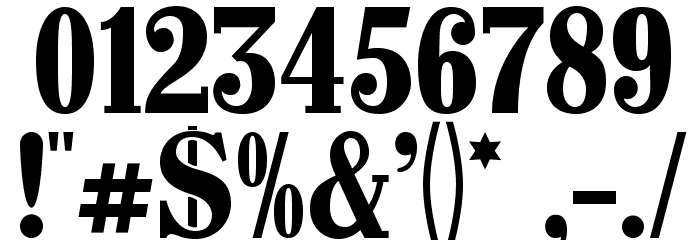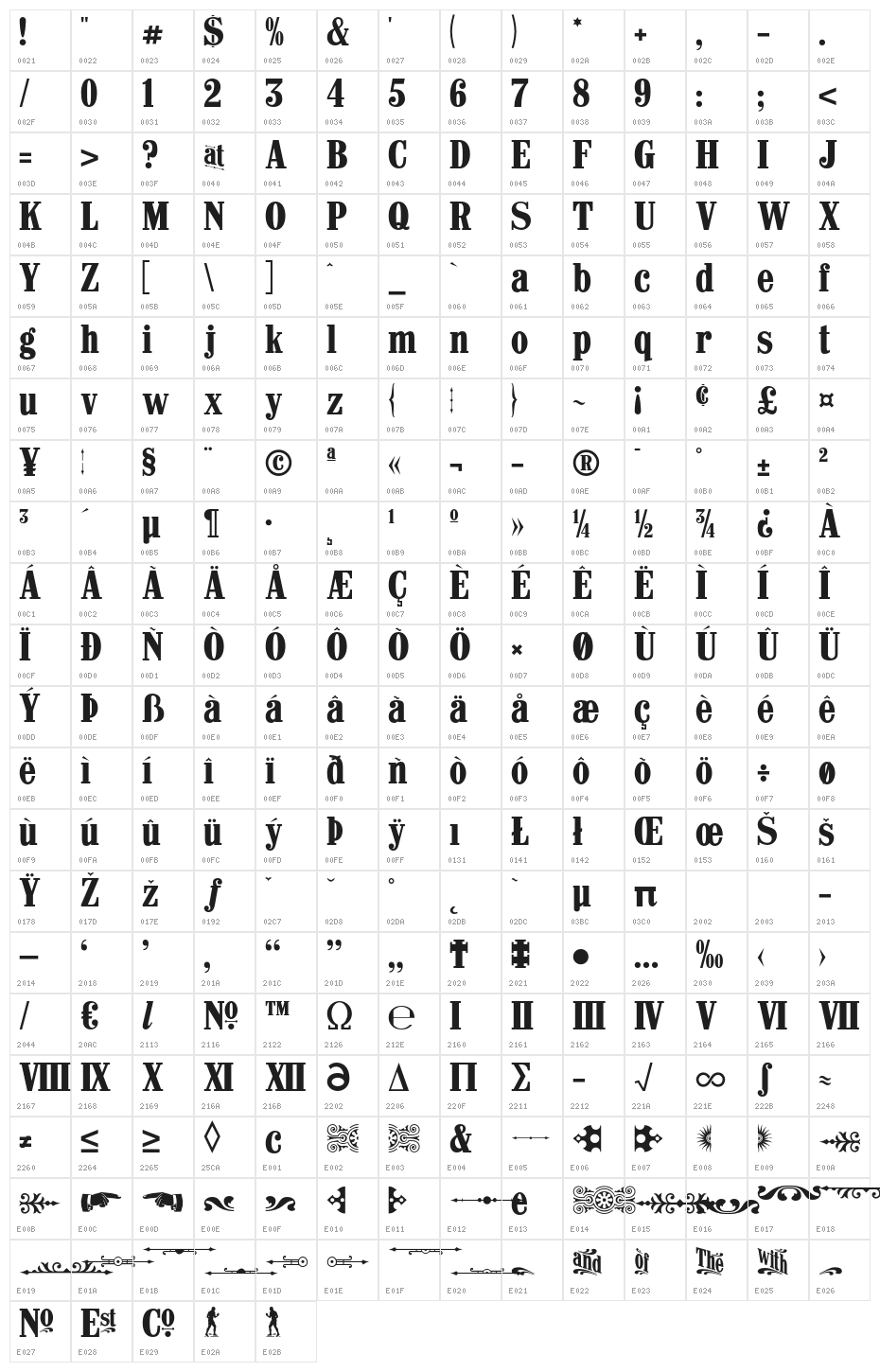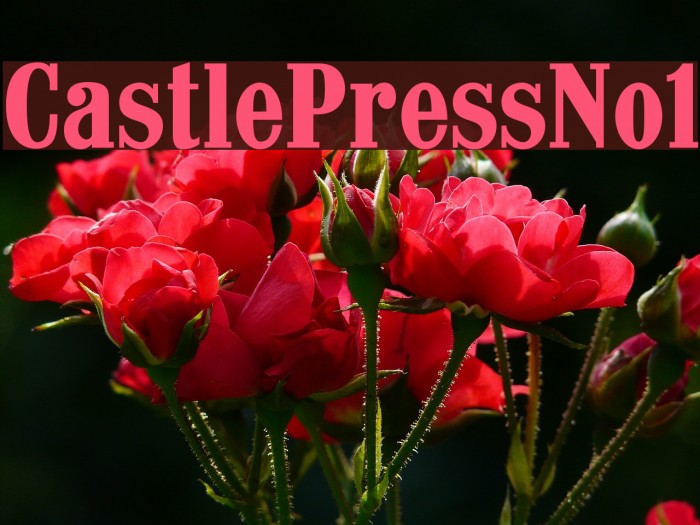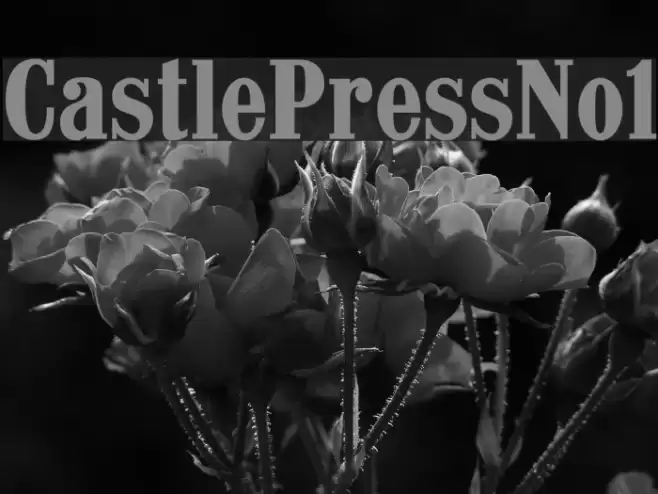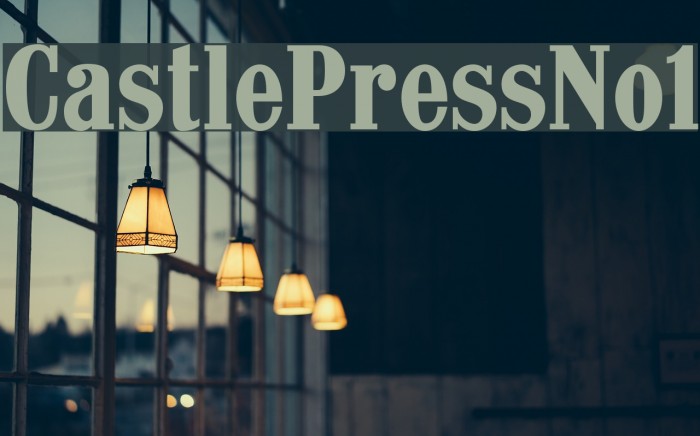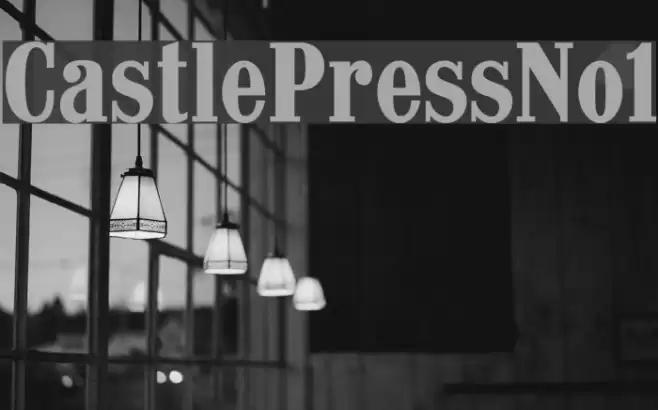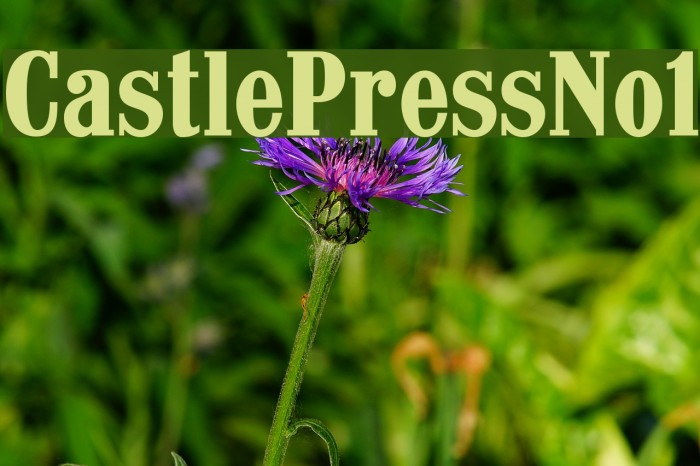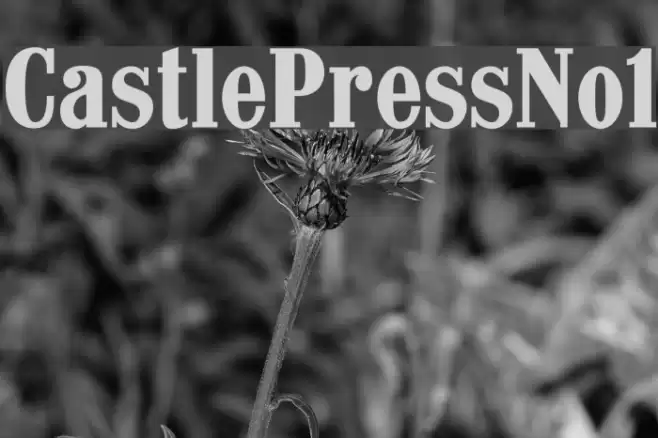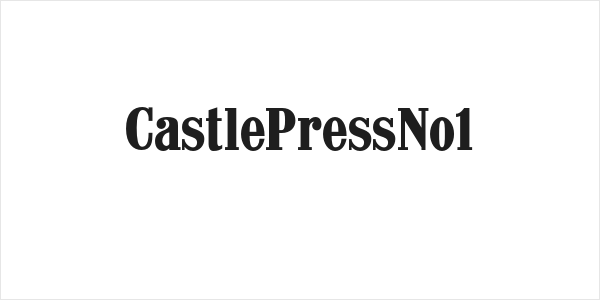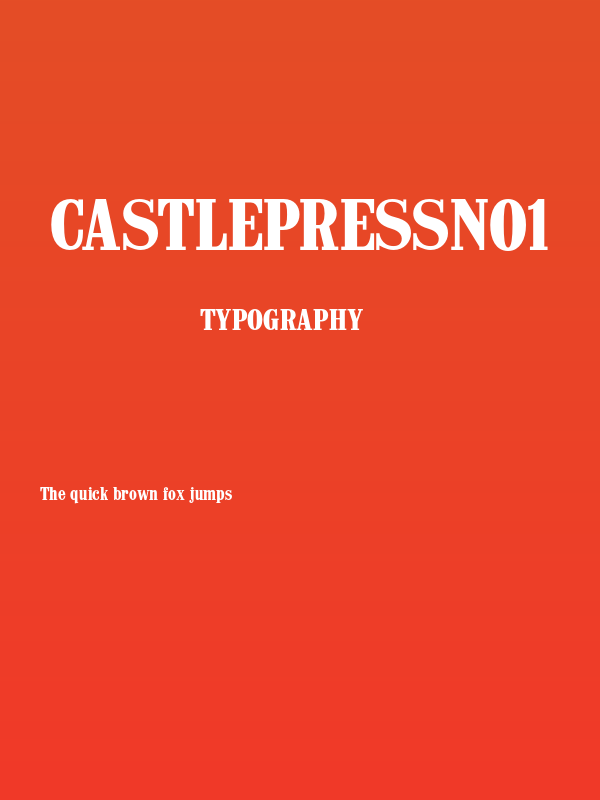
CastlePressNo1 Font
CastlePressNo1 Description
This font features bold, strong characters with a classic serif style, offering a sense of authority and tradition. The uppercase letters are robust and commanding, while the lowercase letters maintain a consistent weight and structure. The numerals are equally bold, ensuring readability and impact. Special characters are designed with a similar boldness, making them stand out. The overall design is reminiscent of traditional print styles, with a modern twist that makes it suitable for a variety of applications.